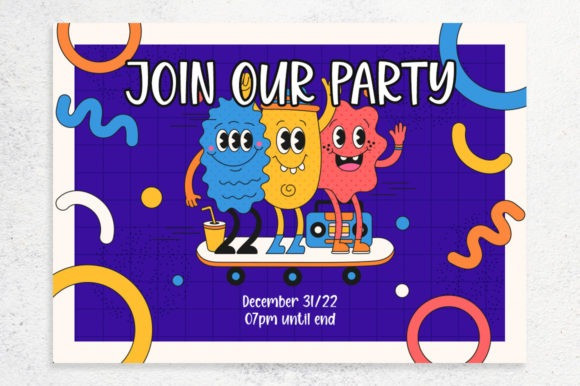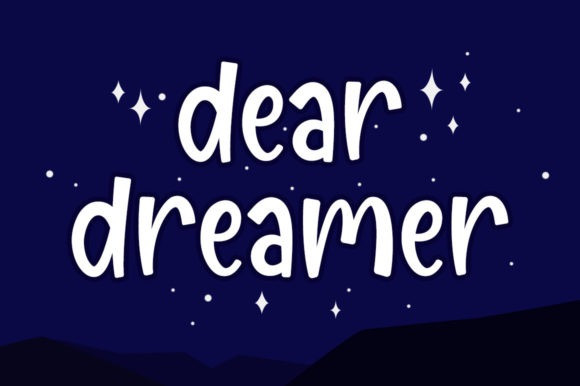
Dear Dreamer Font
Dear Dreamer Font is a cute display font perfect for all the chalkboard quotes and teaching materials you wish to create! Its authentic look will add a personal and realistic feel to your designs.